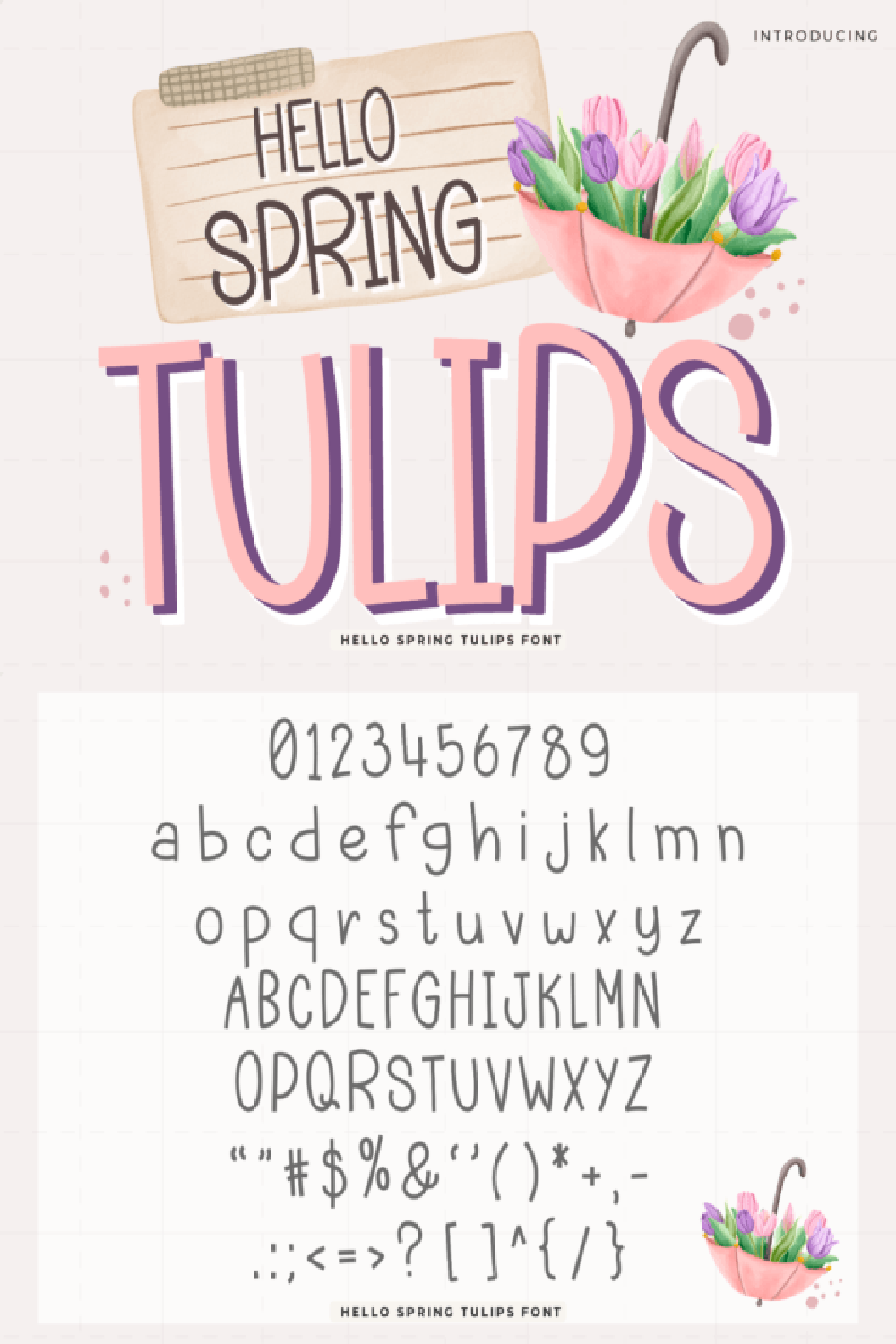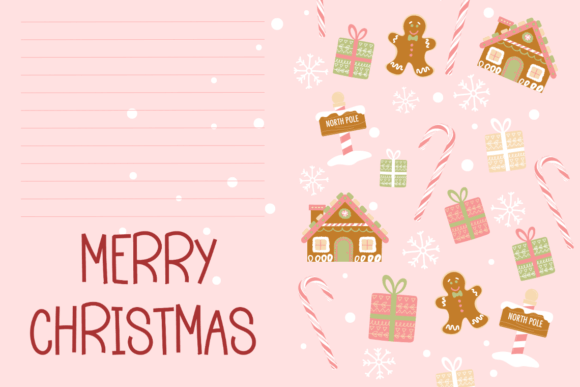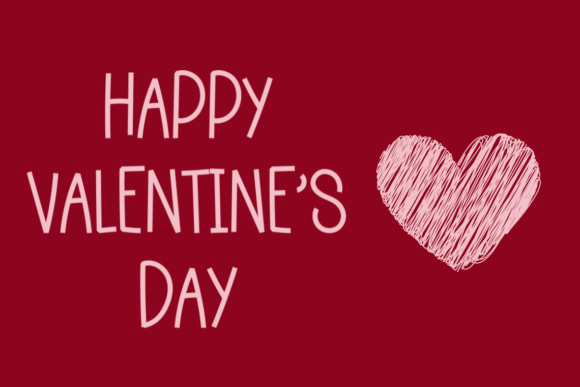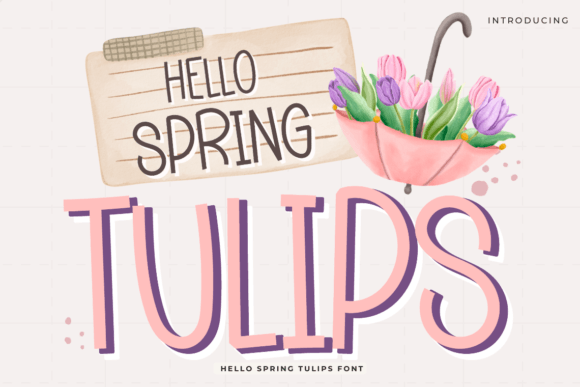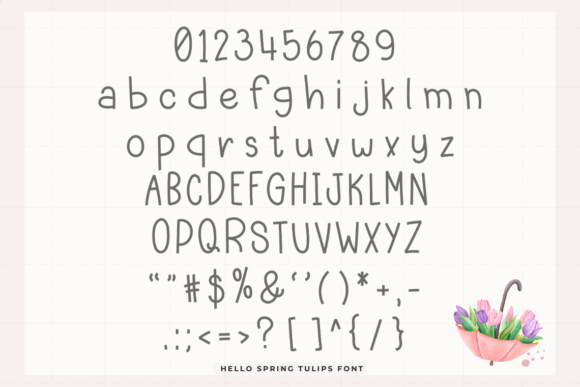
Hello Spring Tulips Font
About the Hello Spring Tulips Font
The Hello Spring Tulips Font is here to transform your projects with its distinctive character and style. Hello Spring Tulips font brings the vibrant spirit of the season to life with its charming handwritten style and whimsical alphabet graphics. Perfect for a variety of projects, this font is designed to inspire, celebrate, and capture the essence of springtime and its blooming tulips. Whether you’re creating seasonal greetings, holiday designs, or simply seeking inspiration, Hello Spring Tulips font adds a delightful touch to your creations. Embrace the beauty of spring and let your designs bloom with this charming and versatile font.